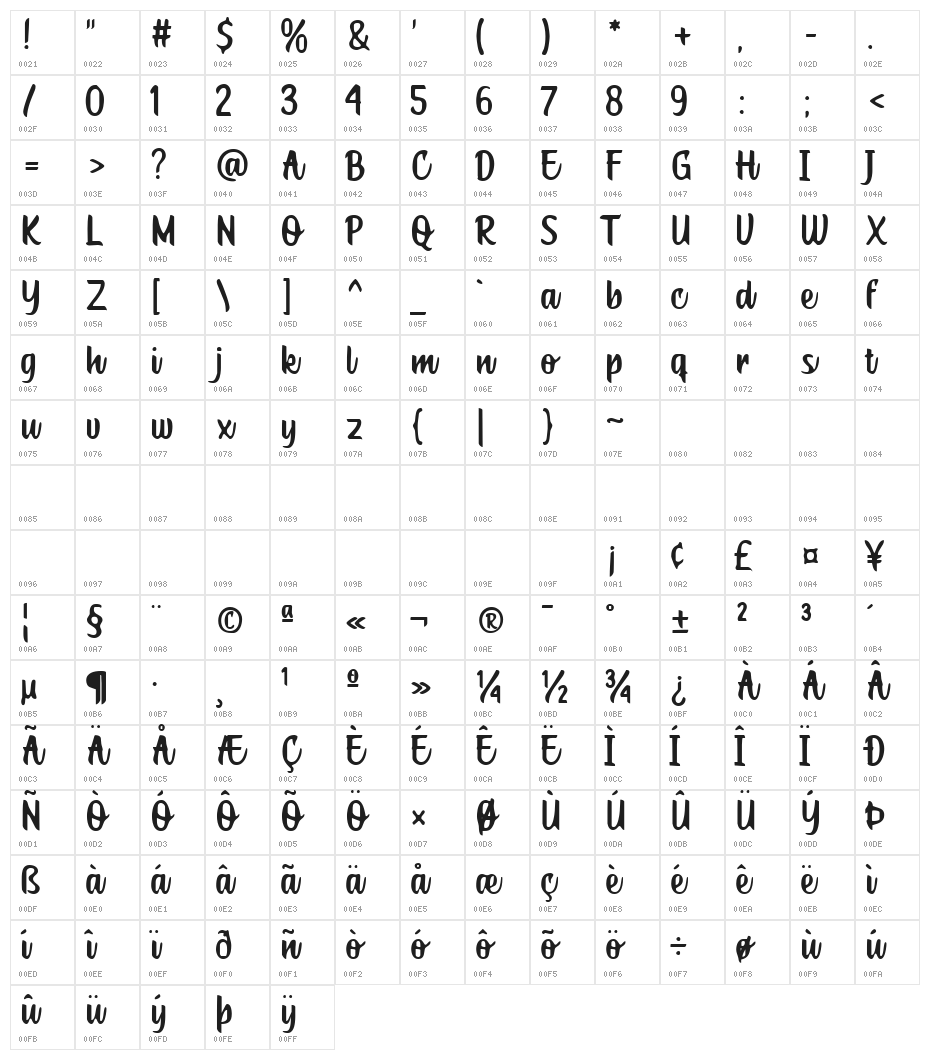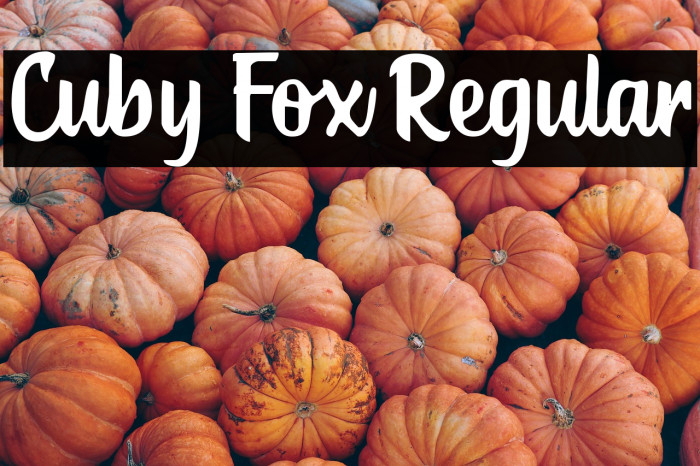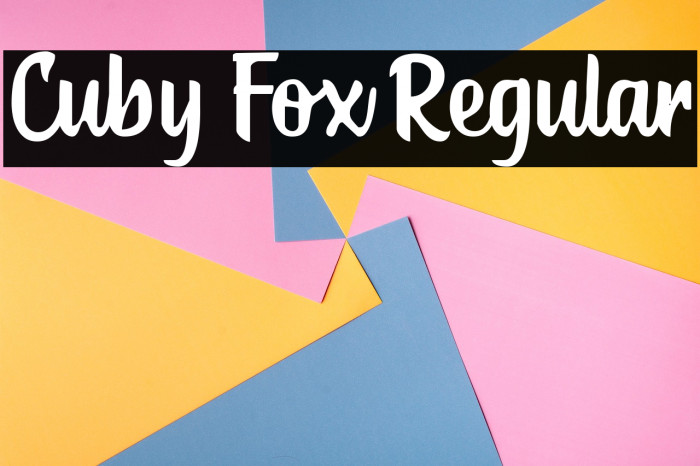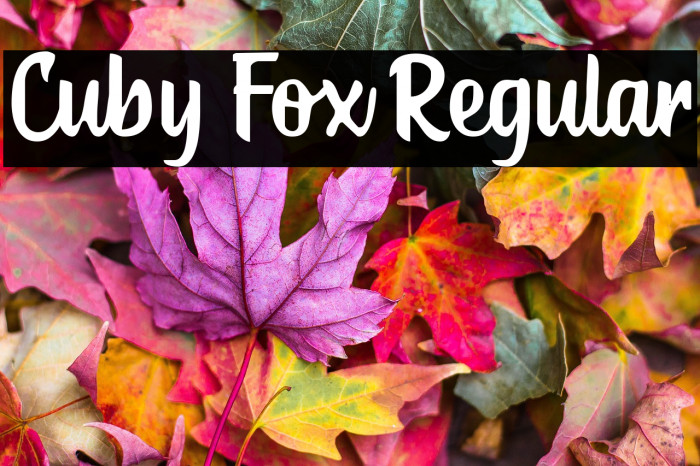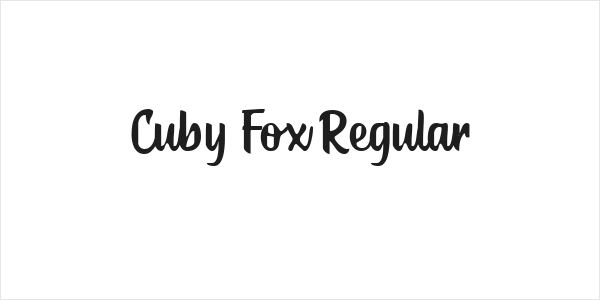
Cuby Fox Regular Font
Cuby Fox Regular Description
This font features a playful and bold handwritten style, characterized by its smooth curves and slightly irregular strokes. The uppercase letters are tall and assertive, while the lowercase letters maintain a friendly and approachable appearance. The numbers are consistent with the overall style, offering a cohesive look. Special characters are well-integrated, maintaining the font's whimsical nature. The font's design is versatile, making it suitable for various creative projects that require a touch of personality and flair.
| Proposed Projects | Ideal for greeting cards, playful branding, children's books, and creative posters. |